15 Fonts Similar to Minion Pro
What font is similar to Minion Pro? Looking for a Minion Pro alternative? In this article, we'll take a look at some fonts similar to Minion Pro and why they might be the perfect choice for your next design.
Fonts Similar to Minion Pro
Why choose a font similar to Minion Pro? Minion Pro bold, italic, and regular are all clean, beautifully designed serif fonts. It's a font from the 1990s, designed by Robert Slimbach and released by Adobe. It's clearly had some staying power, and when you look at the font, you'll clearly see why—it's clean, legible, and can work in a variety of design situations. Pairing other fonts with fonts similar to Minion Pro bold, regular, and italic is easy too. Try pairing this font with script fonts, for example, for a classy pairing like this:
1. Gorgeous Serif Font (OTF, TTF, WOFF)
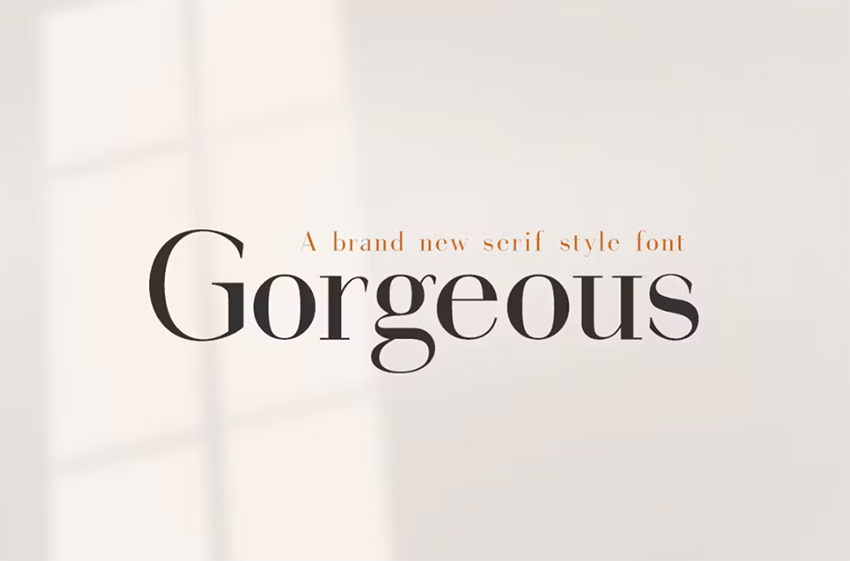
This amazing font family includes four different weights and spacings to choose from. Much like Minion Pro, it has a clean, versatile quality that makes it a solid addition to any designer's toolkit. It looks great at both large and small sizes.
2. Sugardays Stylish Serif Typeface (OTF, TTF)
If you're looking for a Minion Pro alternative with some stylish flair, give this font a try. There are beautiful little extras here that give this serif font just a little more decorative oomph. This one would be an excellent choice for luxury, fashion, and other classy projects.
3. Mangolaine Elegant Serif Font (OTF, TTF)
These serifs are a bit more blocky and a little less like Minion Pro—but we still get a clean, modern look that could work well in a variety of design situations. This is another solid choice if you're looking for a versatile font.
4. Butcherly Stylish Serif Type (OTF, TTF)
This is a perfect font similar to Minion Pro if you're looking for a classy, upscale look. Aren't those stylistic alternates beautiful? Use them to accentuate parts of a word when you're creating emphasis. This is another font that scales nicely too, so it can also work at smaller sizes.
5. Catelyna Modern Serif Font (OTF, TTF)
If you're a fan of Minion Pro Bold, you may like a font with a heavier weight, like this one. It's got a chunky look that could certainly command attention. However, it scales very well and could even work nicely for larger passages of copy. It's a versatile addition to any font library.
6. Distrampler Luxury Serif Font (OTF, TTF)
Fonts similar to Minion Pro tend to have a clean, sophisticated look, as we see in this font. The strokes have a little more contrast than Minion Pro, and it makes for a very luxurious look and feel. It scales nicely, but may work better at larger sizes.
7. Skywalks Elegant Serif Font (OTF, TTF)
Isn't this an elegant font? The curved variations give this font a memorable look. These stylized extras could make this an excellent choice for points of emphasis in your composition. For example, titles or deadlines could benefit from these decorative aspects.
8. Vigosamine Classy Serif Font (OTF, TTF)
This classy serif font feels like a modern take on a retro vibe. It's stylish and visually interesting, but isn't necessarily decorative either. Try pairing it with a script font. This is one that could still read well at smaller sizes too, making it a versatile choice.
9. Cita Pro Serif Font Family (OTF)
If you're looking for fonts similar to Minion Pro Bold, you might prefer this download. You get so much here—an entire font family packed with content. Choose from 14 different styles, including some lovely bolds. This would be a great addition to any designer's toolkit.
10. Nrajas Bold Serif Font (OTF, TTF)
Minion Pro Bold is a great choice if you're looking for something strong and solid, just like we see in this serif font alternative. It's got a bold, heavy look, which makes it a great choice for titles, headlines, and even logo designs.
11. Anko Serif Font Family (OTF)
If you're looking for a font that's similar to Minion Pro but you'd really prefer an entire font family, try this out. This lovely serif font comes in eight different styles, from bold to italic. It's a professionally designed family with so many possible use cases.
12. Slippery Serif Typeface (OTF)
This font has rounded serifs, which makes for a friendly, warm aesthetic. It could be a great choice if you enjoy fonts similar to Minion Pro but you'd like something a little more personal and relaxed. Notice how this font feels rather informal compared to others on this list.
13. Shallot Elegant Serif Font (OTF)
Fonts similar to Minion Pro tend to be legible and versatile, as we see in this lovely font family. It's a stylish font that looks great at larger sizes. However, it's such a clean, solid design even at smaller sizes too. This font could work well as both a primary and a supplemental part of a design.